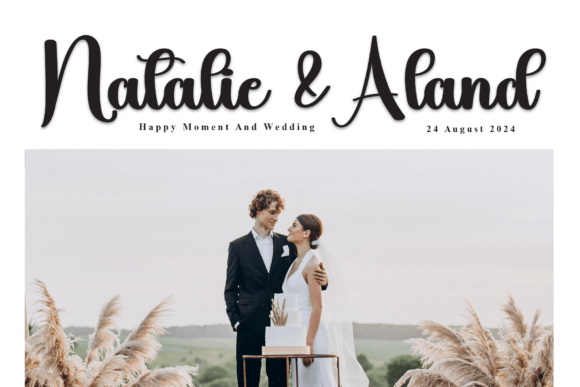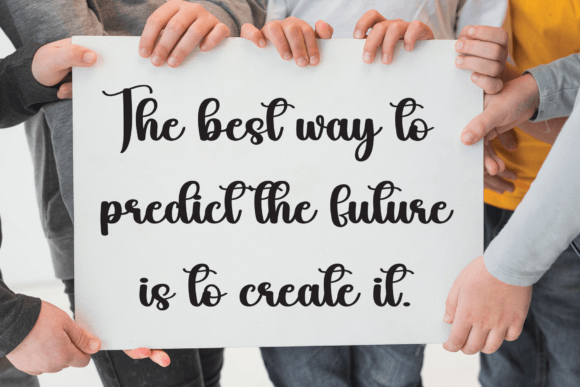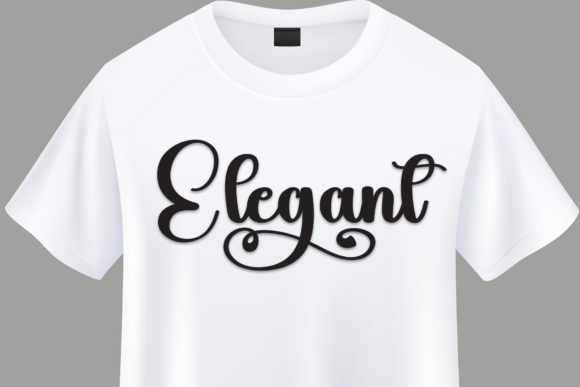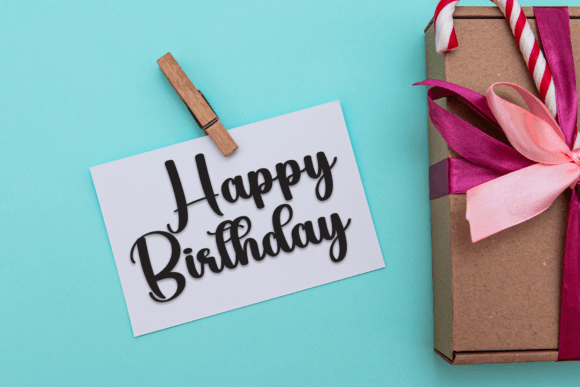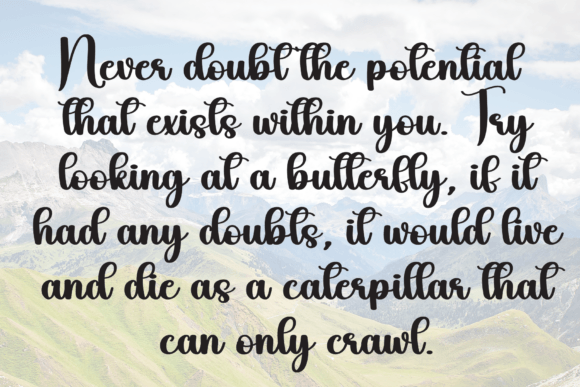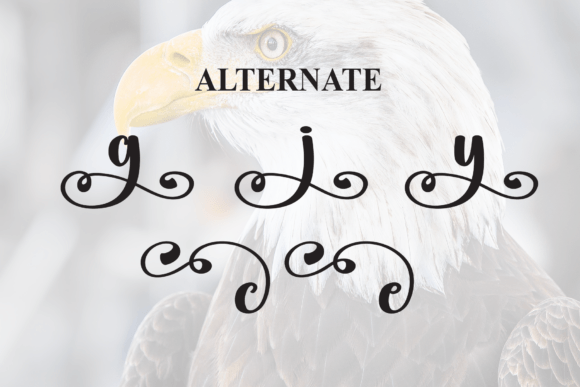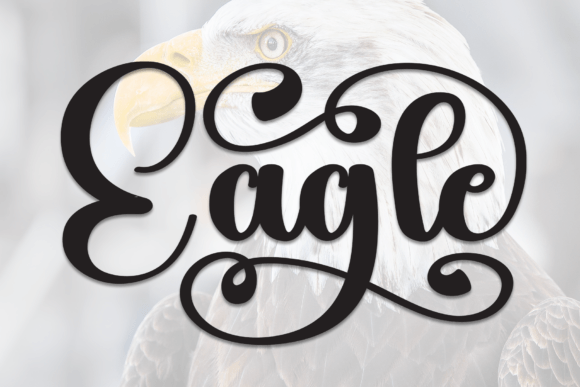
Eagle Font: A Playful and Warm-Hearted Handwritten Display Font
Are you looking for a font that can add a touch of personality and charm to your designs? Look no further than the Eagle Font, a playful and warm-hearted handwritten display font that is sure to bring a smile to your face. Crafted with love, this lovable font is perfect for etching affectionate messages on wedding invitations, sprucing up greeting cards, and adding a sprinkle of joy to any design.
What Makes Eagle Font So Special?
Eagle Font is a unique and delightful font that is designed to bring a sense of warmth and personality to your designs. Its playful and cheerful vibe makes it perfect for a variety of projects, from wedding invitations and greeting cards to social media graphics and more. The font’s handwritten style gives it a personal and human touch, making it perfect for designs that require a bit of whimsy and flair.
One of the best things about Eagle Font is its ability to add a touch of romance and whimsy to wedding invitations and greeting cards. The font’s playful and affectionate style makes it perfect for etching sweet messages on wedding invitations, while its cheerful vibe is sure to brighten up any greeting card. Whether you’re a designer or a crafter, Eagle Font is a great choice for any project that requires a bit of personality and charm.
A Font that Adds Joy to Any Design
Eagle Font is more than just a font – it’s a way to add a bit of joy and whimsy to any design. Its playful and cheerful style makes it perfect for designs that require a bit of personality and flair. Whether you’re creating a social media graphic, a blog post, or a website, Eagle Font is a great choice for adding a touch of warmth and personality to your design.
Why Designers and Crafters Love Eagle Font
Designers and crafters love Eagle Font for its unique and playful style. The font’s handwritten style gives it a personal and human touch, making it perfect for designs that require a bit of whimsy and flair. Additionally, the font’s cheerful vibe makes it perfect for adding a touch of joy and personality to any design. Whether you’re a professional designer or a crafter, Eagle Font is a great choice for any project.
How to Use Eagle Font in Your Designs
Eagle Font: A Great Choice for Any Design Project
Eagle Font is a great choice for any design project that requires a bit of personality and charm. The font’s playful and cheerful style makes it perfect for a variety of projects, from wedding invitations and greeting cards to social media graphics and more. Whether you’re a designer or a crafter, Eagle Font is a great choice for adding a touch of warmth and personality to your designs.
In conclusion, Eagle Font is a playful and warm-hearted handwritten display font that is sure to bring a smile to your face. Its unique and delightful style makes it perfect for a variety of projects, from wedding invitations and greeting cards to social media graphics and more. Whether you’re a designer or a crafter, Eagle Font is a great choice for adding a touch of personality and charm to your designs.